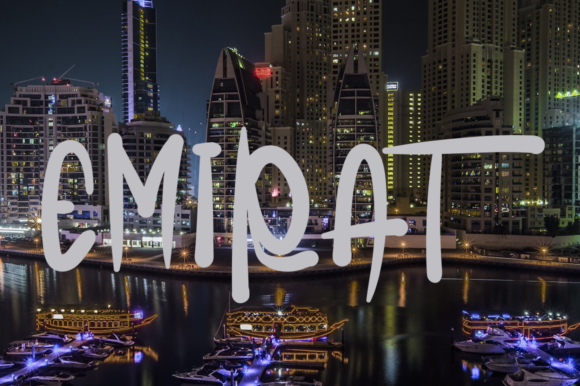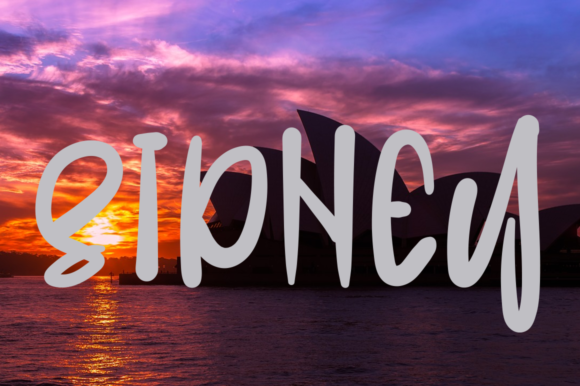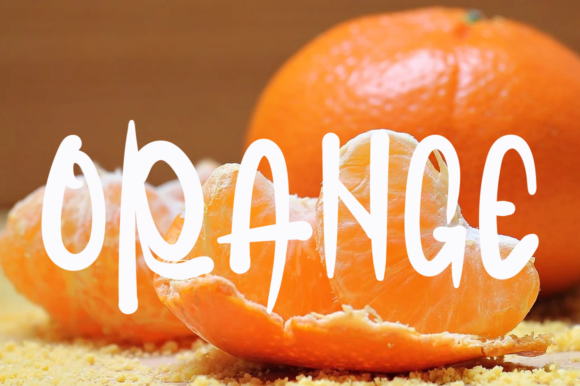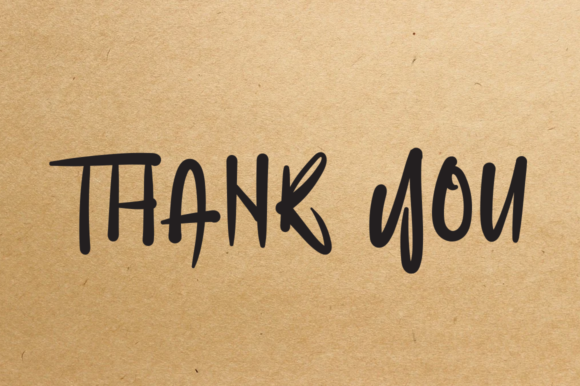
Dubai Font: A Dainty, Genuine, and Relaxed Handwritten Font for Your Design Projects
Are you tired of using the same old fonts for your design projects? Do you want to add a touch of personality and whimsy to your creations? Look no further than the Dubai Font, a beautiful handwritten font that is sure to bring a smile to your face. In this article, we’ll take a closer look at the Dubai Font, its features, and how you can use it to elevate your design projects.
What is Dubai Font?
Dubai Font is a dainty, genuine, and relaxed handwritten font that is perfect for adding a touch of warmth and personality to your designs. This gentle font is designed to be versatile and can be used on a variety of design ideas, from invitations and greeting cards to posters and social media graphics.
Features of Dubai Font
The Dubai Font has several features that make it a standout choice for designers and crafters. Some of its key features include:
- Handwritten style: The Dubai Font has a beautiful, handwritten style that gives it a personal and authentic feel.
- Dainty and delicate: The font’s dainty and delicate design makes it perfect for creating elegant and sophisticated designs.
- Genuine and relaxed: The font’s genuine and relaxed style makes it perfect for creating designs that are friendly and approachable.
- Versatile: The Dubai Font is highly versatile and can be used on a wide range of design projects.
How to Use Dubai Font in Your Design Projects
The Dubai Font is easy to use and can be incorporated into a variety of design projects. Here are a few ideas to get you started:
- Invitations and greeting cards: The Dubai Font is perfect for creating beautiful and elegant invitations and greeting cards.
- Posters and flyers: The font’s bold and playful style makes it perfect for creating eye-catching posters and flyers.
- Social media graphics: The Dubai Font can be used to create engaging and shareable social media graphics.
- Branding and packaging: The font’s unique and memorable style makes it perfect for creating custom branding and packaging.
Tips for Using Dubai Font Effectively
Here are a few tips for using the Dubai Font effectively in your design projects:
- Use it with contrasting colors: The Dubai Font looks best when paired with contrasting colors that make it stand out.
- Experiment with different sizes: The font’s delicate design makes it perfect for use at smaller sizes, but it can also be used at larger sizes for a bold and dramatic effect.
- Pair it with other fonts: The Dubai Font can be paired with other fonts to create a unique and visually interesting design.
The Dubai Font is a beautiful and versatile handwritten font that is perfect for adding a touch of personality and whimsy to your design projects. Its dainty, genuine, and relaxed style makes it perfect for creating a wide range of designs, from elegant invitations and greeting cards to bold and playful posters and flyers. Whether you’re a designer, crafter, or DIY enthusiast, the Dubai Font is a great choice for anyone looking to add a little extra something to their designs.
So why not give the Dubai Font a try? With its unique and memorable style, it’s sure to bring a smile to your face and a touch of joy to your design projects.